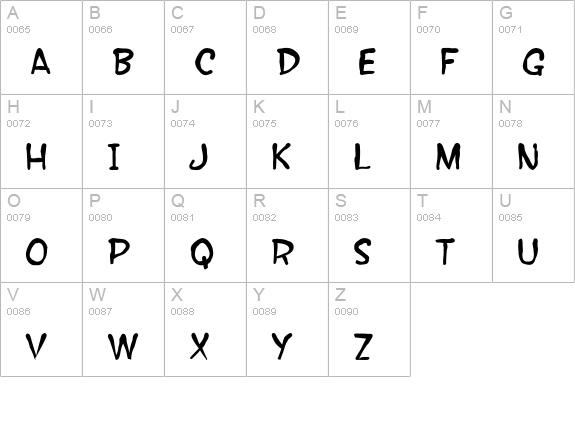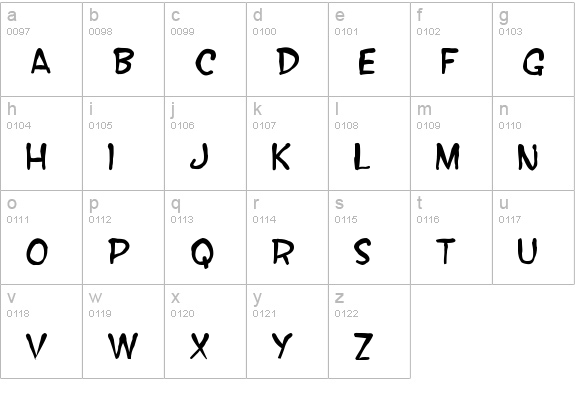
SF Wonder Comic Blotch Font Details
Introducing SF Wonder Comic Blotch font - a delightful and playful typeface that injects a burst of creativity and imagination into your designs. With its unique and hand-drawn appearance, this font exudes a sense of whimsy and wonder, making it perfect for any project that aims to captivate and engage its audience. SF Wonder Comic Blotch font is meticulously crafted to resemble the charming imperfections found in comic book illustrations. Its irregular strokes and splatters add an authentic and dynamic touch, bringing your designs to life with a sense of energy and movement. Whether you're a graphic designer, illustrator, or simply someone who appreciates the art of storytelling, SF Wonder Comic Blotch font offers endless possibilities for your creative endeavors. From comic books and graphic novels to posters, advertisements, and branding materials, this font will effortlessly enhance your visual narratives and leave a lasting impression on your audience. And the best part? SF Wonder Comic Blotch font is available for free! That's right, you can download this incredible font at FontsMarket.com without spending a dime. We believe in making quality design accessible to all, and SF Wonder Comic Blotch font is a testament to that commitment. So, why wait? Unleash your inner superhero and let SF Wonder Comic Blotch font be your trusty sidekick in creating captivating and eye-catching designs. Download it for free at FontsMarket.com and embark on a creative journey filled with excitement, imagination, and boundless possibilities.